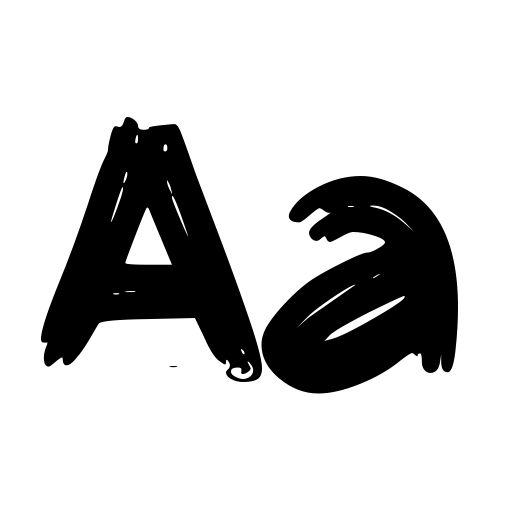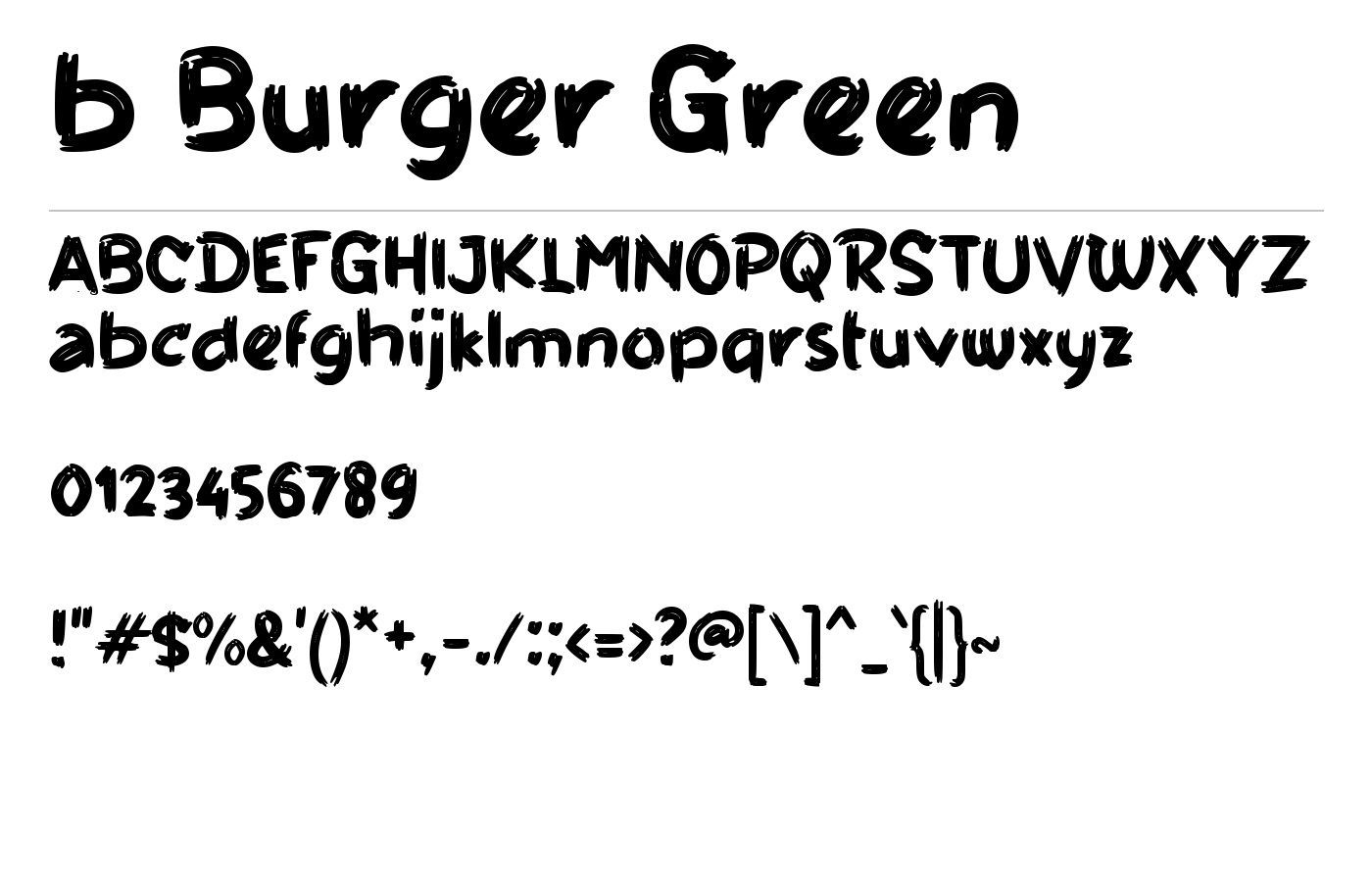
b Burger Green is a bold, playful sans serif font with a hand-drawn, brushstroke appearance that gives it an energetic and informal vibe. Its irregular shapes and thick, textured strokes make it perfect for fun and creative designs like logos, posters, and packaging that want to feel friendly and approachable. This font works best for headlines and display use where a lively, casual look is desired.
b Burger Green Font
About b Burger Green Font